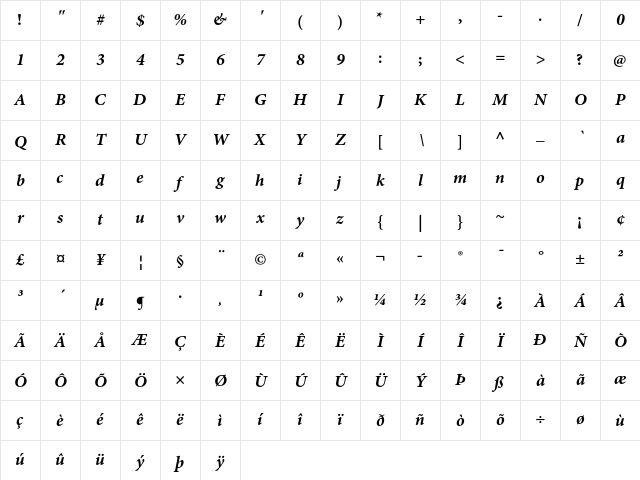
Adobe Arabic Bold Italic
Foundry: Tiro Typeworks for Adobe Systems Incorporated.
Designer: Tim Holloway (Arabic) and Robert Slimbach (Latin)
Design Context for Adobe Arabic
Adobe Arabic is a composed and adaptable typeface that performs quietly and consistently across a wide range of design contexts. The slanted form adds forward momentum and visual energy. Its bold stroke weight gives it real presence on the page.
Pro Tip: Use Adobe Arabic for emphasis, pull quotes, and subheadings where its slanted energy can add rhythm to the layout.
Who designed the Adobe Arabic Bold Italic font?
This font was published by Tiro Typeworks for Adobe Systems Incorporated.. Check the technical specs section for copyright and designer details.